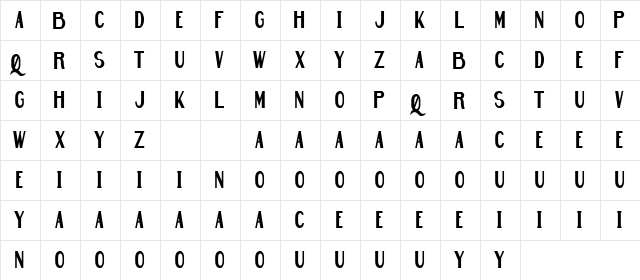
Fabulouscity Demo Bold
Design Context for Fabulouscity Demo Typeface
Fabulouscity Demo is a composed and adaptable typeface that performs quietly and consistently across a wide range of design contexts. The heavy weight commands attention and anchors typographic hierarchies.